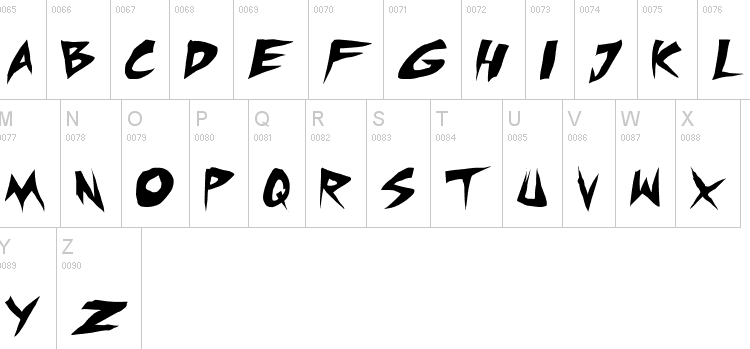
Press Gang Studios (was: Shonenpunk, or: Andeh Fonts, or: Teabeer Studios) [Andeh Pinkard]
Press Gang Studios is the latest name of Andeh Pinkard's place on the web, Before that, it was called Shonenpunk, and before that, Andeh Fonts, and before that, Teabeer Studios. Andeh Pinkard (b. 1980) is the Whittier, CA-based comic artist and designer (b. 1979) of these free (and often, comic book) fonts:
• Typefaces from 2020: Mechapunk, Super Gossip (a comic book family).
• Typefaces from 2019: Shoujo Pop.
• Typefaces from 2017: Wrecking Krew (glaz krak font).
• Typefaces from 2016: Outrun Future (brush type), Badonk-a-donk 2 (cartoon font), Comic Douche.
• Typefaces from 2015: Battle Breath (very rough comic book style), Fighting Wordz.
• Typefaces from 2014: Punch It, Manga Speak 2, Dreamgirl's Dream.
• Typefaces from 2013: Grind Zero, Pixel Dead, Space Punk, Skrunch (comic book face), Otaku, Otaku Rant Bold, At Risk Youth, Pixelpunk.
• Old Evils (2012) and Sugar Death (2012): brush typefaces.
• Counter Hit (2012), Roof Runners (2012) and Roof Runners Active (2012). A triplet of comic book typefaces.
• All Exes Must Die (2012), Hangover Monday (2012).
• Welcomic Bros (2011, hand-printed), Boom Tank (2011, angular family), Outlander (2011, poster face), Shin Akiba Punx (2011), Pandora Limiter (2011), Geekriot (2011), Punkboy (2011), Pandora Limiter (2011, manga face).
• DealspinnerTBS (2010), MicCheckTBS-Bold (2010), Obssessed (2010), StubbornHeartzTBS (2010), comichuslte (2010), Setlist TBS (2010, comic book style).
• Facepunch (2009), Goon Spectre (2009), Indy Pimp (2009, comic book style), 30 Pack Girl (2009, comic book style), Fighting Spirit (2009, brush face).
• Brutal Dude (2008, scratchy comic book face), AkibaPunx-BoldItalic, AkibaPunx (2008, comic book typefaces), Vigilante Sidekick (2008, comic book style), Street Cred (2008, comic book style family), Rise Up (2008, comic book style).
• Gunblade (2007), Webcomic Whore (2007, comic book face), Taste of Steel (2007), Post Human (2007), Walk The Plank (2007, letters made from planks), Webcomic Whore (2007, comic book face), Shonenpunk v2 (2007, comic book face), Whisked away (2007), Doujinshi (2007, comic book face), Badonk-a-donk (2007, comic book style), Firewall Zero (2007, techno), Badonk-a-donk (2007, comic book), Adam Warren (2007, comic book family; see also here), Manga Speak (2007, comic book).
• Keisadiya (2006), Robo Pimp Slap (2006), Dirty Duo (2006, handwriting), Shellhead (2006, blockish family), Zerogene (2006, handwriting), Shank (2006, handwriting), Shonen Punk Custom (+Bold) (2006, comic book style typefaces), Endbuster (2006, robot anime inspired).